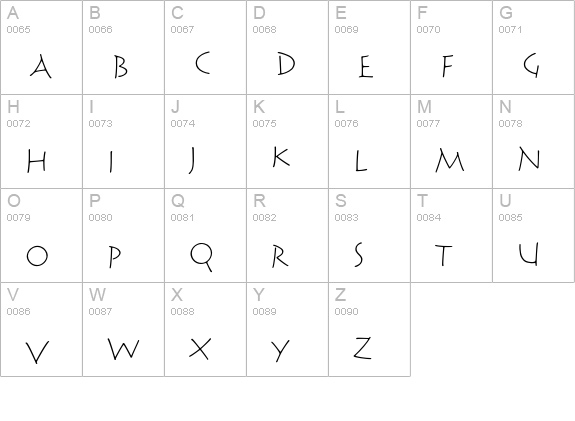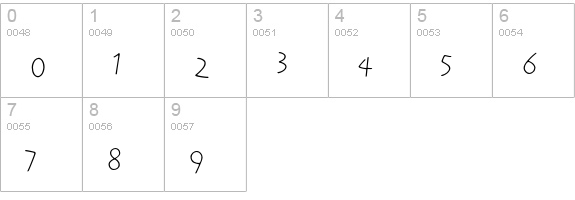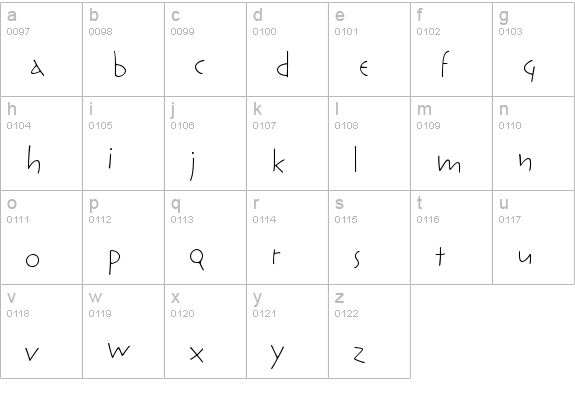
Reliq Std Light ExtraActive Font Details
Reliq Std Light ExtraActive is a refined, elegant variant in the Reliq typeface family \xE2\x80\x94 well suited to elegant body text, refined sub-headings, and luxury branding.
Reliq Std Light ExtraActive is a versatile typeface that effortlessly combines elegance and functionality. This font exudes a sense of sophistication and refinement, making it the perfect choice for a wide range of design projects. With its clean lines and subtle curves, Reliq Std Light ExtraActive captures attention without overpowering the overall composition. The light weight of the font adds a touch of delicacy, making it ideal for projects that require a gentle, yet impactful, visual presence. This font is designed to be highly legible, ensuring that your message is communicated clearly and effectively. Whether it's used for headlines, body text, or captions, Reliq Std Light ExtraActive ensures that your words are easily readable, even at smaller sizes. One of the standout features of Reliq Std Light ExtraActive is its versatility. This font seamlessly adapts to various design styles, whether it's used in a modern, minimalist layout or a vintage-inspired composition. It effortlessly blends into any project, elevating the visual appeal and creating a sense of harmony. What makes Reliq Std Light ExtraActive even more appealing is that it is freely available to download at FontsMarket.com. This means that designers and creatives can access this elegant font without any restrictions, unleashing their creativity and bringing their visions to life. So, if you are looking for a font that effortlessly combines elegance, functionality, and legibility, look no further than Reliq Std Light ExtraActive. Download it for free at FontsMarket.com and discover the endless possibilities it offers for your design projects.